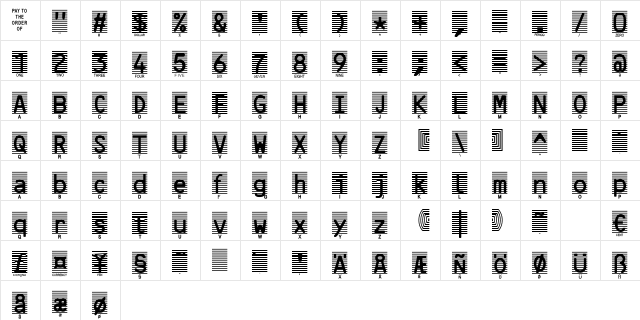
HighSecurity Regular
Design Context for HighSecurity
HighSecurity is a composed and adaptable typeface that performs quietly and consistently across a wide range of design contexts.